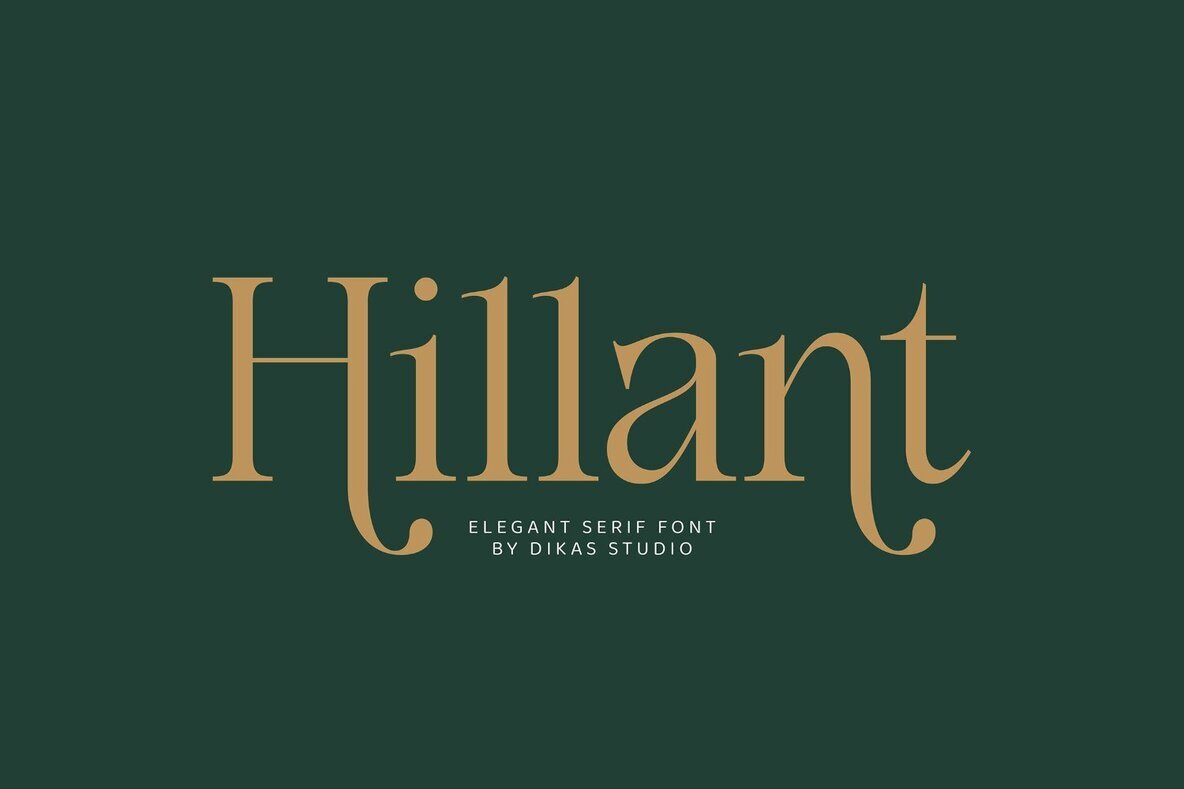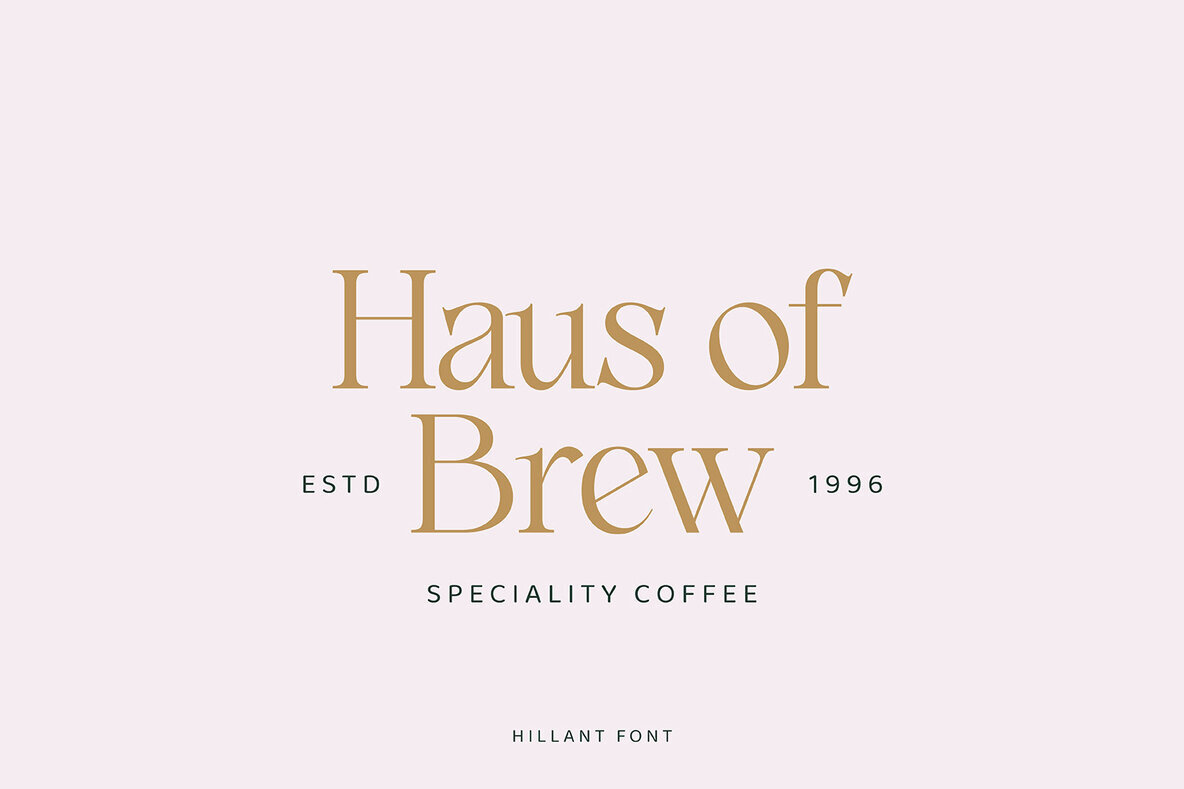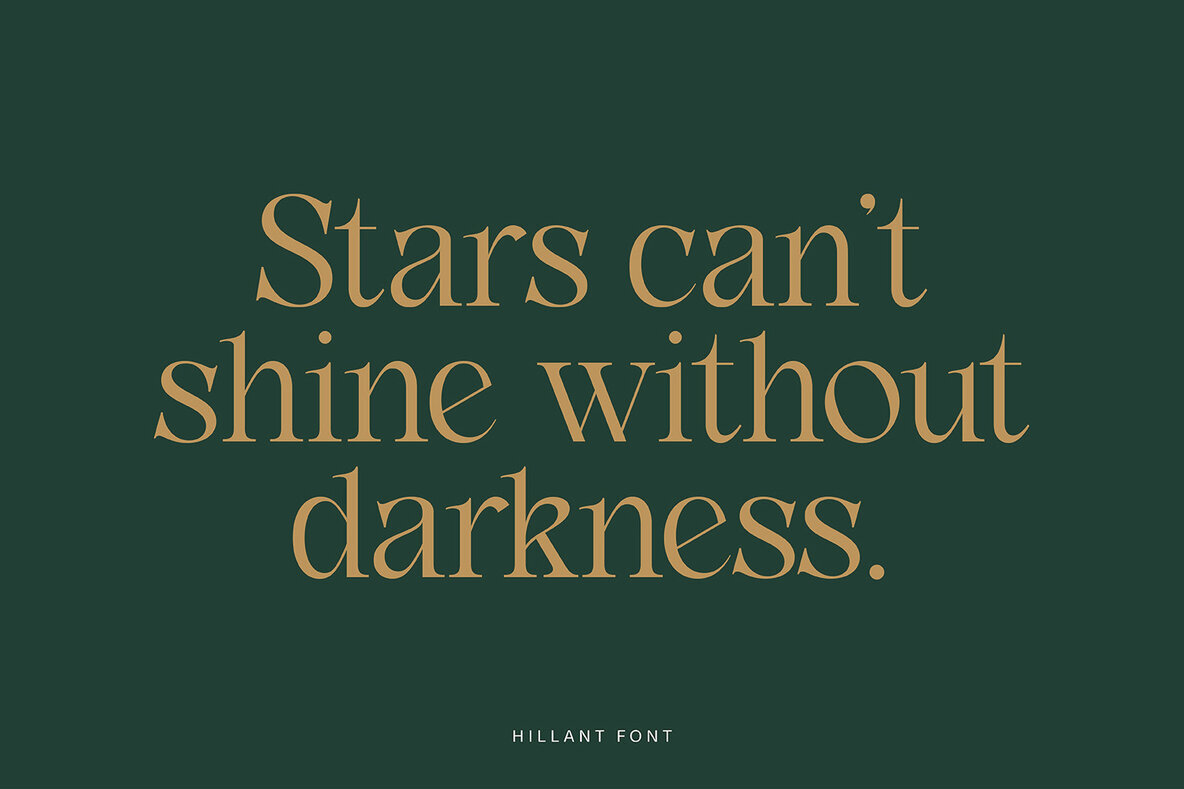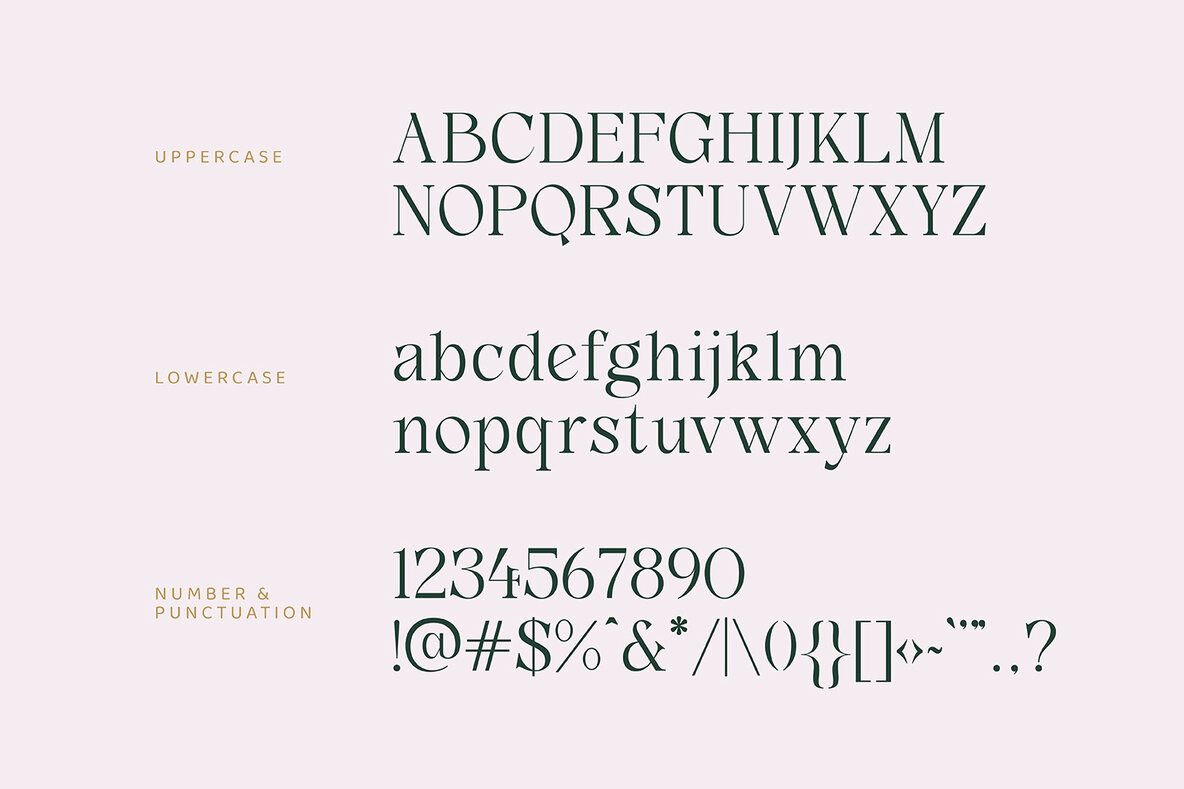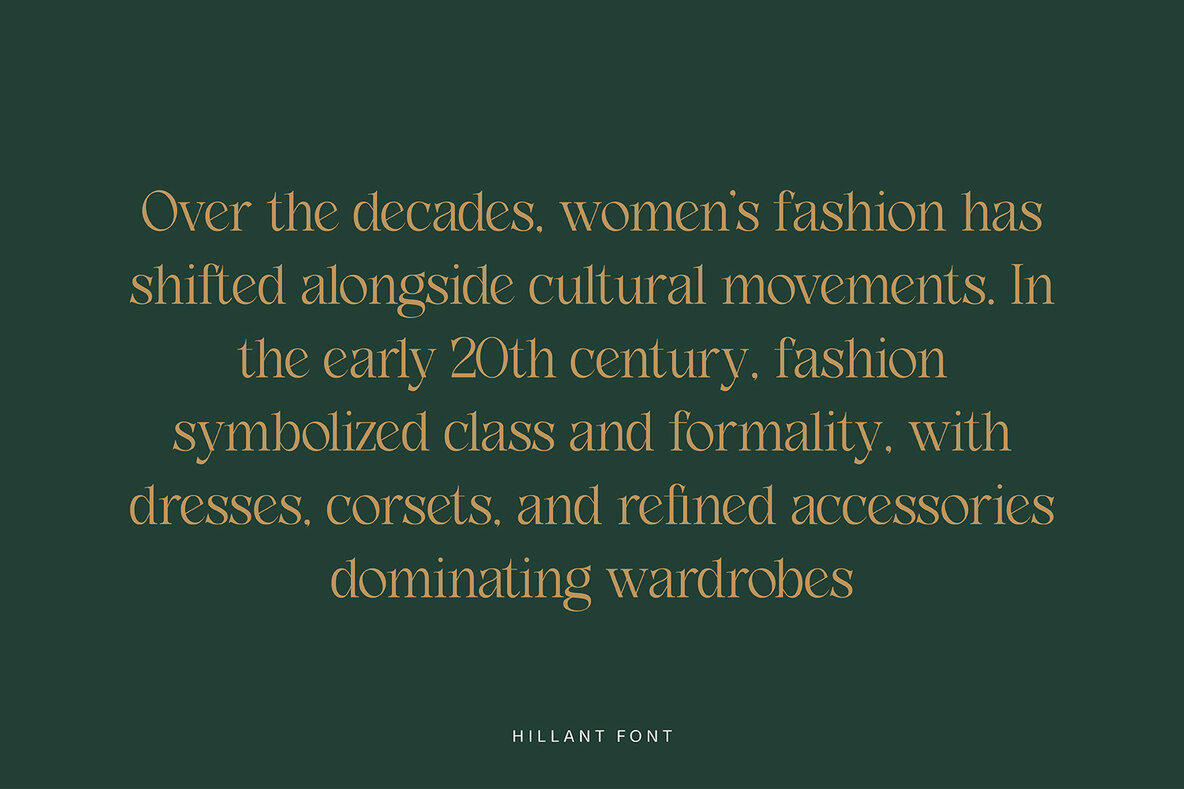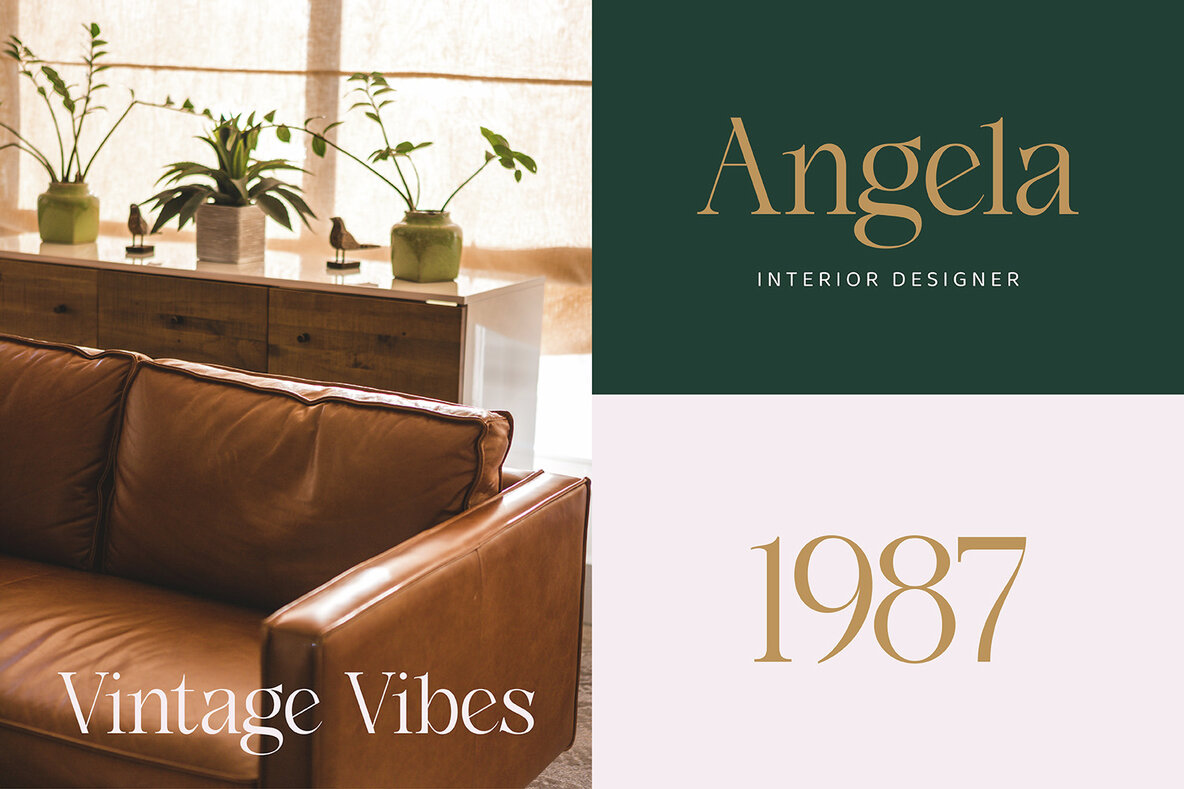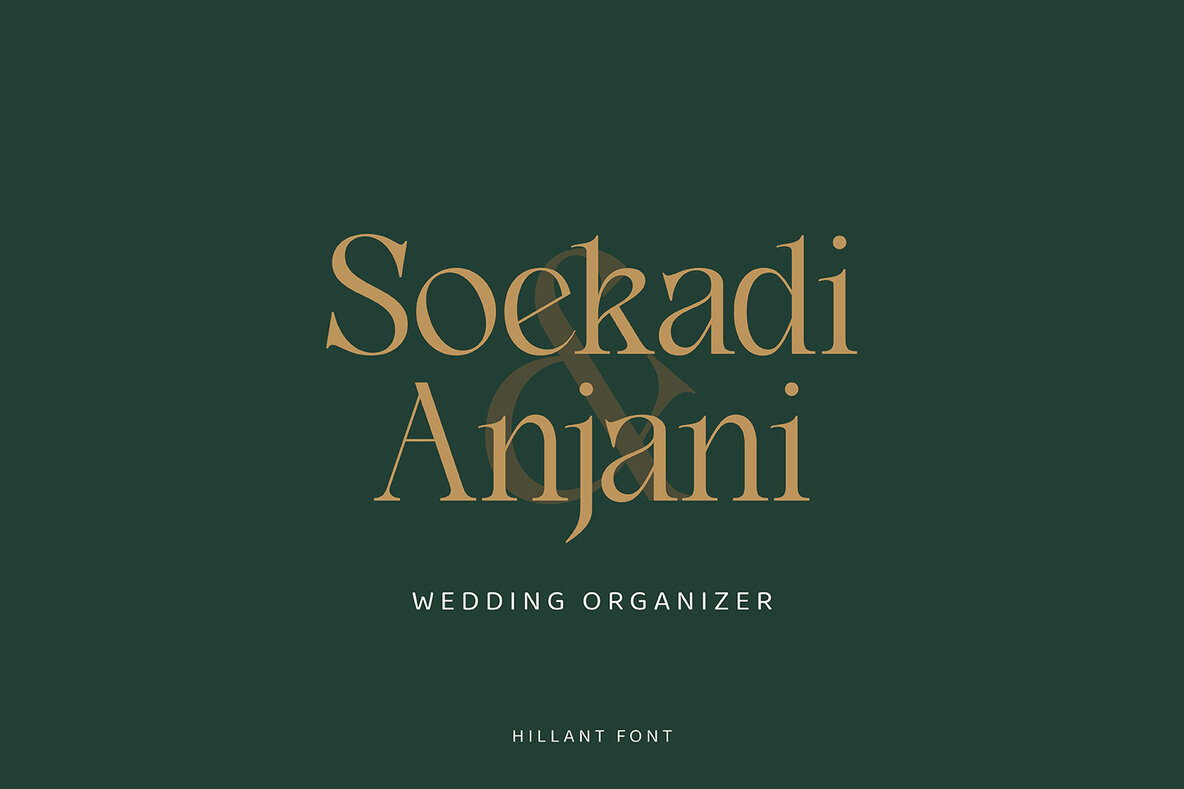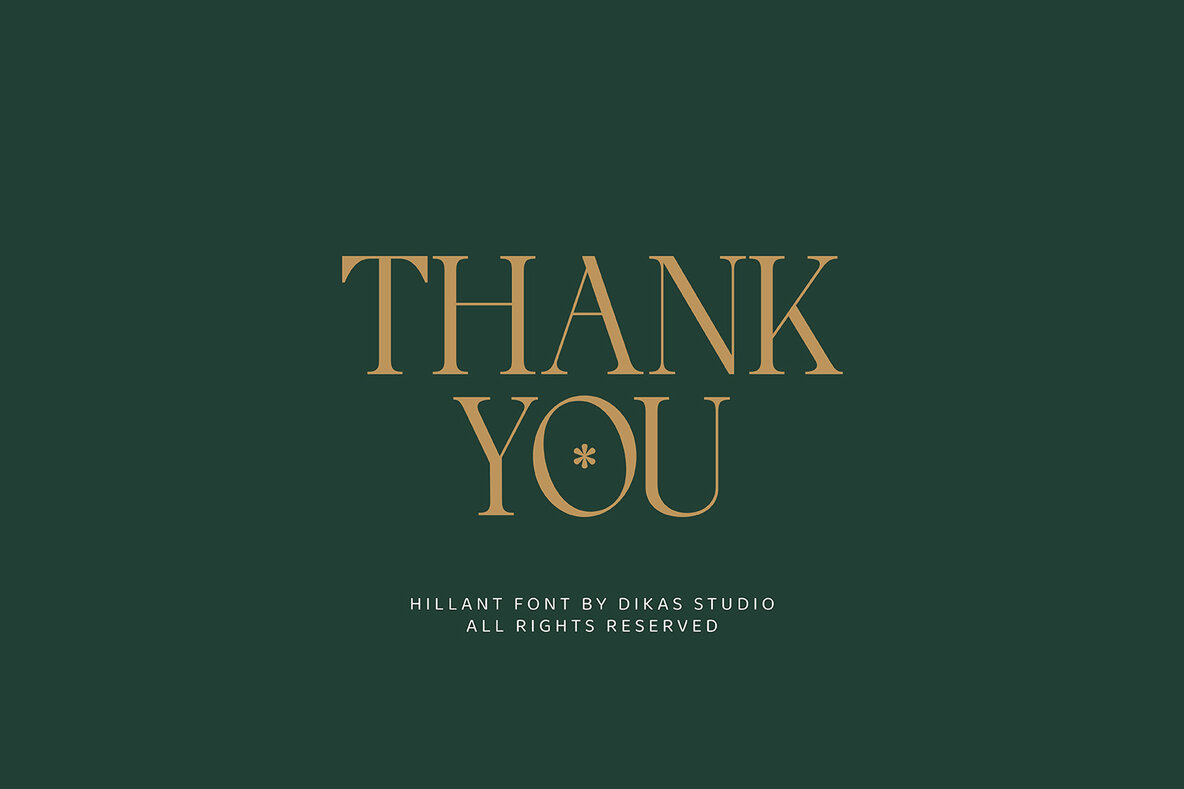
Hillant Font
DKS Hillant Regular
Hillant is a meticulously crafted condensed serif typeface that embodies elegance and vintage allure with a touch of drama. Its sharp serifs and compact design ensure exceptional legibility, making it the ultimate choice for impactful headlines, distinctive logos, and eye-catching posters. Whether you're designing for fashion branding or wedding invitations, Hillant offers a bold sophistication that enhances every project.Hillant: Condensed Serif Typeface